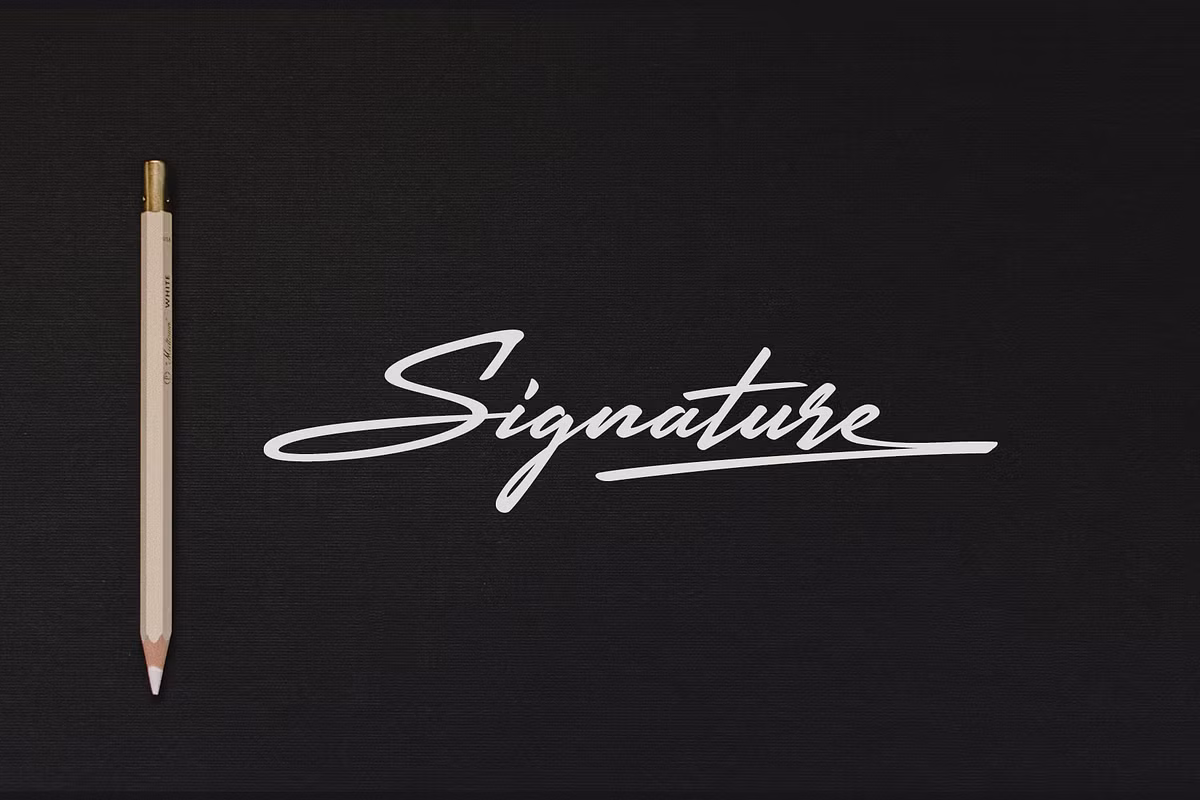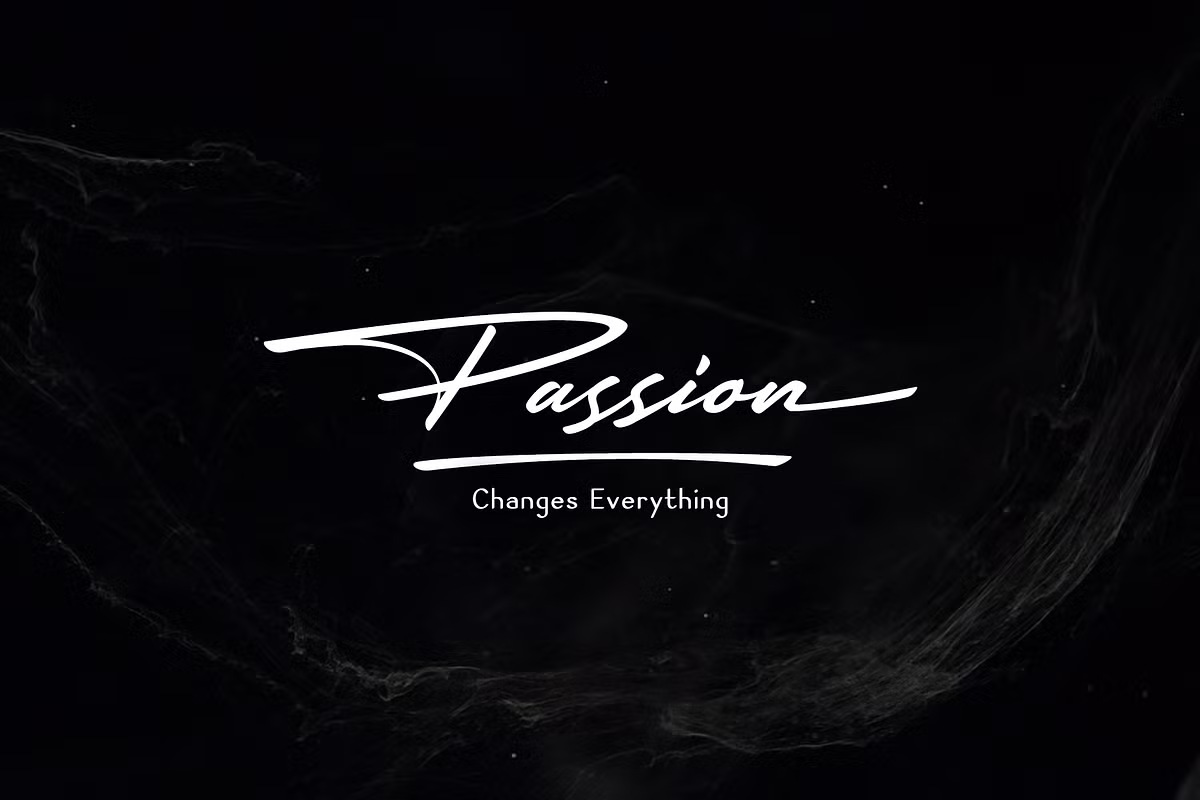
Active Handwritten Signature Font
Active Handwritten Signature Font: Authentic Typeface for Design Projects
The Active Handwritten Signature Font is a really nice typeface that looks super personal and authentic. It’s made to look like someone’s actual signature, with all the natural strokes and flows that come with handwriting. This makes it perfect for lots of different design projects, like making invitations, creating brand identities, or just adding some flair to your digital designs. When you use Active, it gives your text a classy feel that really makes it stand out. You can use it to make your designs look more elegant and unique, which is great for making a good impression. Whether you’re working on a big project or just something small, this font is a great choice because it adds a touch of personality and style to your work.
Sample design using Active Handwritten Signature Font
Example of Active font in design projects
Design Style of Active
Active is a really special font because of its handwritten look. It adds a lot of warmth and personality to any text, which makes it great for sending personal messages or making your designs feel more human. The way it looks is casual, but also kind of fancy, so it works well for lots of different situations. The lines are all fluid and the thickness of the lines varies, which makes it look really authentic. This means it can fit in perfectly with both formal and informal designs, which is really useful.
The way a font looks can be made even more interesting with special features like stylistic alternates and ligatures. These extras help designers create text that really grabs your attention and sticks in your mind. By using these features, designers can add some excitement to their work and make it more visually appealing. This makes the text more engaging and easier to remember, which is really important for getting your message across.
Character set of Active Handwritten Signature Font
Character set showcasing Active font’s versatility
Character Sets and Glyphs
One of the standout features of the Active font is its extensive character set. It includes a total of 257 glyphs, which encompass a wide variety of elements such as:
• Uppercase and lowercase alphabets
• Numerals
• Punctuation marks
• Ligatures
• Stylistic alternates
• Swashes
• Multilingual characters
This diverse range of characters means you can use Active in multiple languages and contexts, ensuring versatility across your design projects.
Active Handwritten Signature Font in branding
Active font used in branding contexts
Use Cases for Active Font
The Active Handwritten Signature Font is highly versatile and can be used in a variety of design applications. Here are some common use cases:
• Branding: The authentic feel of Active makes it perfect for logos and branding materials that require a personal touch.
• Invitations: Whether for weddings, parties, or corporate events, the font adds an elegant flair to printed invitations.
• Website Design: Use Active in headings or call-to-action buttons to draw attention and create a friendly atmosphere.
• Social Media Graphics: The font is ideal for creating eye-catching graphics for your social media platforms, helping you stand out.
• Personalized Gifts: The handwritten style makes it suitable for custom designs on gifts, cards, or stationery.
The Active font is really versatile and has a wide range of characters, which makes it a great choice for adding some excitement to different projects and making them look more interesting.
Active Handwritten Signature Font in invitations
Active font featured in elegant invitation designs
Pairing Suggestions for Active Font